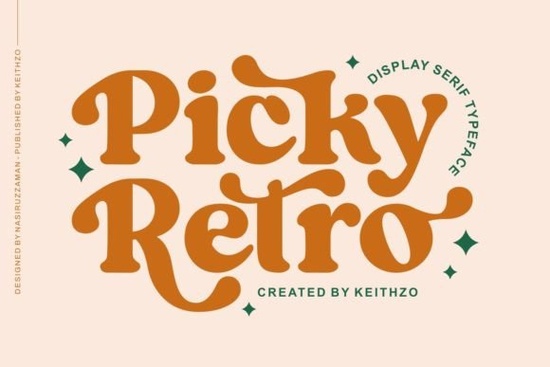
If you're looking for a bold, vintage-inspired serif font that works well for logos, greeting cards, or social media graphics without feeling overused or overly ornate you’ll likely enjoy Picky Retro Font. It’s not a delicate script or a minimalist sans; it’s a confident, slightly quirky display serif with strong serifs, open counters, and just enough personality to stand out on a mug, invitation, or shop banner. Designed for real-world use not just mood boards it balances classic structure with subtle playfulness, making it a practical pick for crafters and small business owners who want character without clutter.
What kind of projects does Picky Retro Font work best for?
This font shines where visibility and tone matter most: headlines, product labels, event signage, and short-form branding. Because it’s a display typeface not meant for body text it pairs naturally with clean, neutral fonts like Montserrat or Lora for contrast and readability. Think wedding invitations where “Mr. & Mrs.” gets the Picky Retro treatment, while the date and venue stay legible in something simpler. Or a small-batch candle label where the scent name (“Honey & Sage”) pops in bold retro lettering, while ingredients stay understated below.
It also fits well in themed collections. If you’re building a set of printable party kits, Picky Retro Font adds cohesion across banners, cupcake toppers, and thank-you cards especially when paired with other nostalgic styles like Barbie Vintage Font or Playful Children Font. Unlike some retro fonts that lean too heavily into 50s diner kitsch or 70s disco, Picky Retro keeps things grounded with balanced proportions and consistent weight so it feels intentional, not ironic.
How does it compare to similar display serifs?
Compared to chunkier options like Stacked Chunky Font, Picky Retro has more refined stroke contrast and tighter spacing better for smaller-scale prints or digital thumbnails. Against lighter, bouncier choices like Kidpop Font, it reads more mature and timeless, less cartoonish. And unlike many “vintage” fonts that rely on distressed textures or inconsistent baselines, Picky Retro delivers clean, vector-based outlines ideal for cutting machines (Cricut, Silhouette), embroidery digitizing, or high-res print files.
You’ll notice subtle details: the gently flared serifs on uppercase letters, the slightly tapered terminals on lowercase ‘e’ and ‘a’, and the even rhythm across words even at small sizes. That consistency matters when you’re scaling down for tags or stickers. It’s also available in both OTF and TTF formats, with full Latin character support, basic punctuation, and standard ligatures no extra downloads or compatibility headaches.
Who’s using it and why it fits real workflows
We’ve seen small-batch stationery makers use Picky Retro Font for limited-run greeting card sets sold on Etsy. Print-on-demand sellers apply it to throw pillow mockups and tote bag previews where strong typography helps products stand out in crowded feeds. Teachers and homeschoolers adapt it for classroom posters and reading charts because its clear letterforms support early literacy without looking babyish.
One craft blogger shared how she used it across a seasonal collection: “I made a set of printable autumn menus for my café pop-up Picky Retro for the header, then a soft sans for the dishes. Customers told me the menu felt warm and inviting, not just decorative.” That’s the quiet strength of this font: it supports your message instead of competing with it.
A quick checklist before downloading
- ✅ You need a bold, readable serif for short headlines not long paragraphs.
- ✅ Your project benefits from gentle vintage charm, not heavy nostalgia or irony.
- ✅ You’re working across physical and digital outputs (print, SVG cut files, social graphics).
- ✅ You prefer clean, well-hinted fonts no texture overlays or forced distressing.
If those match your needs, Picky Retro Font is ready to drop into your next project no tweaking required. Try it first on a simple layout: one line of text, two font sizes, one color. See how it holds up at 48pt on a postcard, or 24pt on a sticker. Often, the best way to know if a font fits is to use it not overthink it.